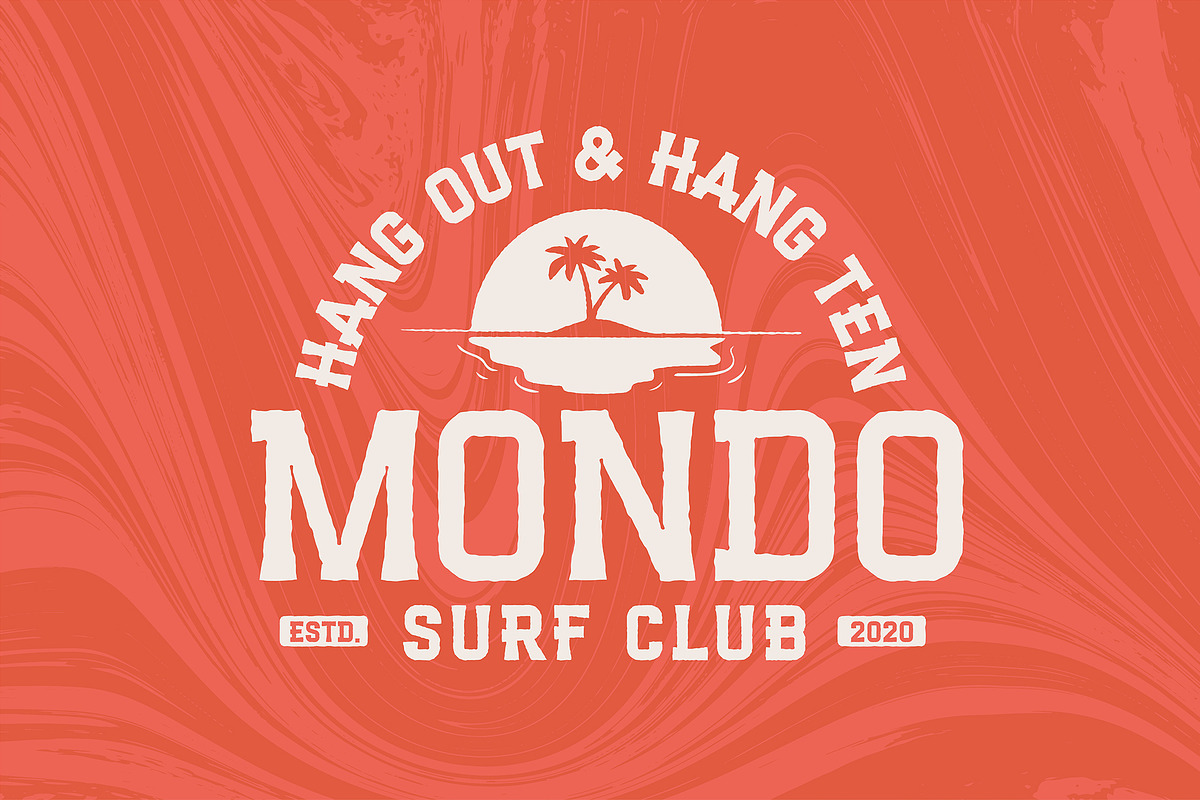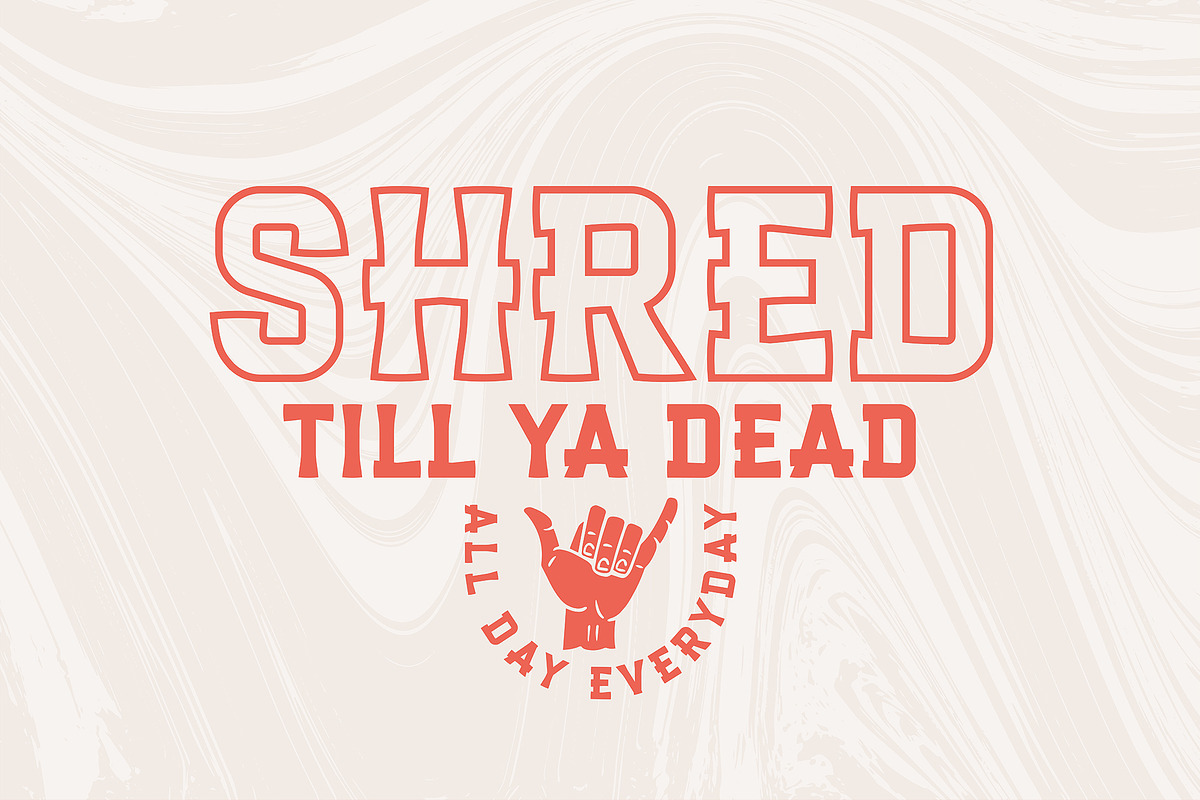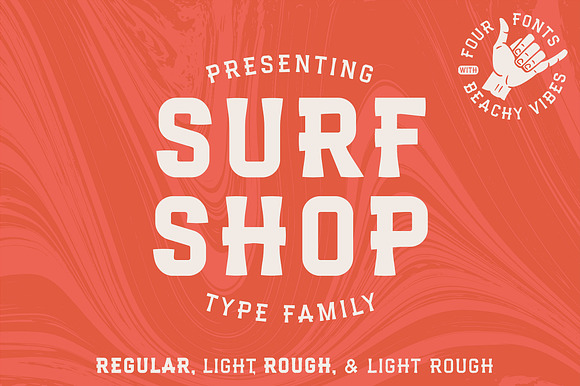
Surf Shop | Coastal Font Family
SURF SHOP is a beachy type family. Every letter has been refined to give you the finest coastal font on the market. SURF SHOP works well for modern badges, while SURF SHOP ROUGH has a more vintage tiki vibe. SURF SHOP ROUGH has an organic feel that helps bring a handcrafted element to your work.
- SURF SHOP LIGHT ROUGH
- SURF SHOP Light
- SURF SHOP Regular
- SURF SHOP ROUGH